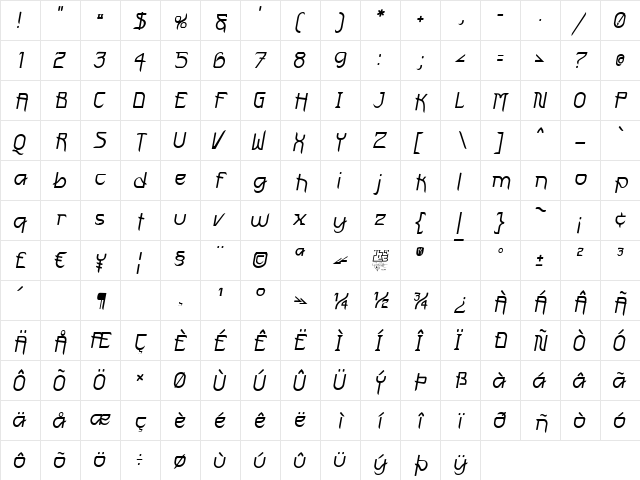
FuturexVariationSwishOblique Regular
Design Context for FuturexVariationSwishOblique Typeface
FuturexVariationSwishOblique channels digital-age aesthetics through its sharp, structured letterforms — ideal for brands that want to signal innovation. Its italic angle brings a sense of urgency and motion to the letterforms.